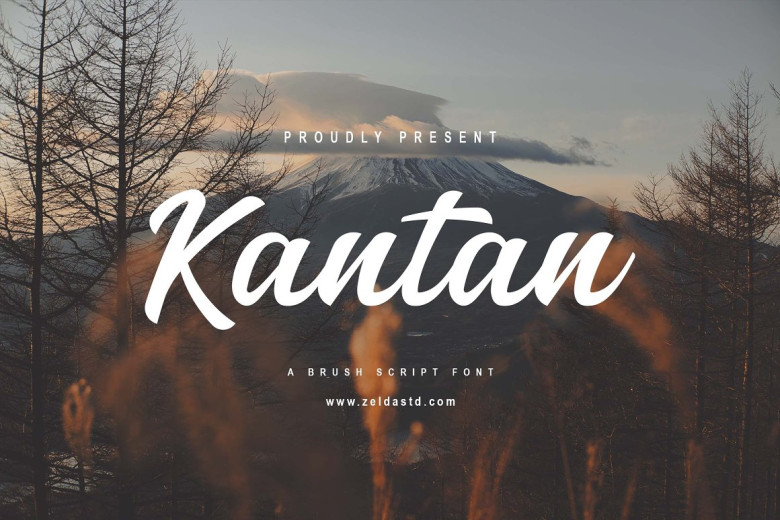
Kantan Font
Kantan font is an original brush-script handwritten font perfect for posters. Useful on Posters, Sticker Jerseys, Invitation Cards or Brochures etc.
Kantan Brush Script Font